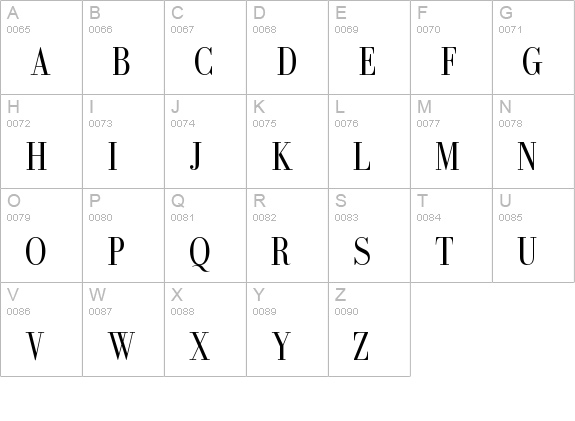
Recital SSi font is a stunning and elegant typeface that captures the essence of sophistication and grace. Its beautifully crafted letterforms exude a classic charm, making it the perfect choice for any project that requires a touch of refinement. With its delicate strokes and graceful curves, Recital SSi font adds a touch of elegance to any design. Whether it's used in a logo, a wedding invitation, or a book cover, this font effortlessly elevates the overall aesthetic, leaving a lasting impression on anyone who sees it. But what makes Recital SSi font even more special is that it is freely available to download at FontsMarket.com. Yes, you read that right - you can access this exquisite font without any cost. This means that you can bring a touch of elegance to your designs without breaking the bank. So why wait? Download Recital SSi font today and add a dash of sophistication to your next project. Whether you're a professional designer or a DIY enthusiast, this font is sure to make your work stand out from the crowd. Don't miss out on this opportunity to enhance your design effortlessly with this free and exquisite font. Head over to FontsMarket.com now and get ready to create something truly remarkable.